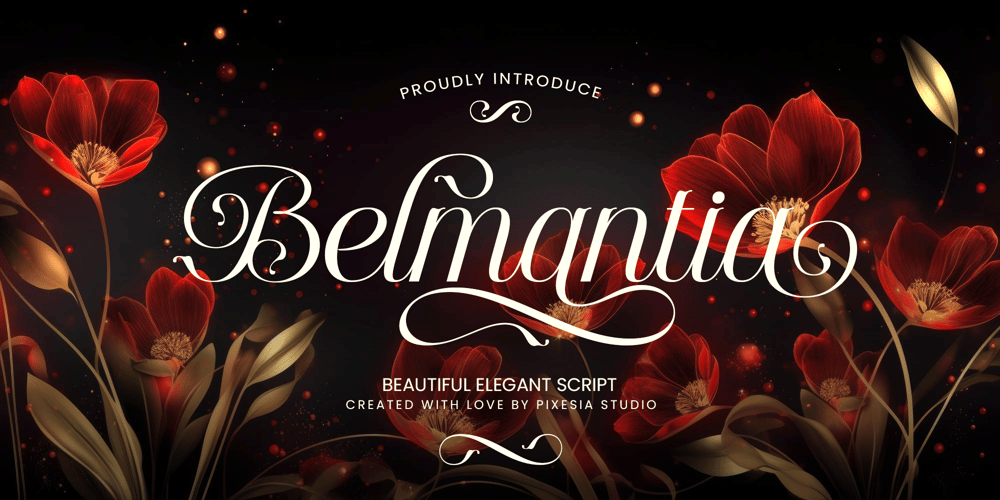
Belmantia
Belmantia font
Belmantia Font Family was designed by Abul Almaududi and published by Pixesia Studio. Belmantia contains 2 styles and family package options. Introducing Belmantia – Elegant ScriptBelmantia is a modern elegant script inspired by classical calligraphy. Each letter dances gracefully, evoking a sense of luxury and grace. It is designed for refined projects and its intricate calligraphy strokes blend traditional charm with modern allure, making it an ideal choice for those who seek class and sophistication.Belmantia is perfectly suited for branding, logotypes, wedding invitations, romantic quotes, labels, social media posts, advertisements, product packaging, product designs, label, photography, watermark, invitation, stationery and any projects seeking an elegant, beautiful, feminine, and dramatic look.FEATURES- Stylistic Alternates- Ligatures- Uppercase and Lowercase letters- Numbering and Punctuations- Works on PC or Mac- Simple Installation- PUA Encoded Characters – Easily accessible without additional design software.- Support Adobe Illustrator, Adobe Photoshop, Adobe InDesign, also works on Microsoft Word- Multilingual Support for 89 languages including Afrikaans, Albanian, Basque, Catalan, Danish, Dutch, English, Estonian, Faroese, Filipino, Finnish, French, Galician, German, Icelandic, Indonesian, Irish, Italian, Malay, Norwegian Bokmål, Portuguese, Spanish, Swahili, Swedish, ZuluHope you Like it.Thanks.